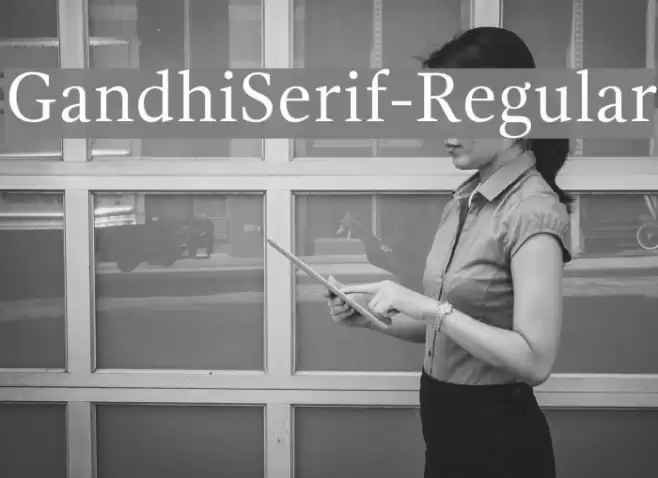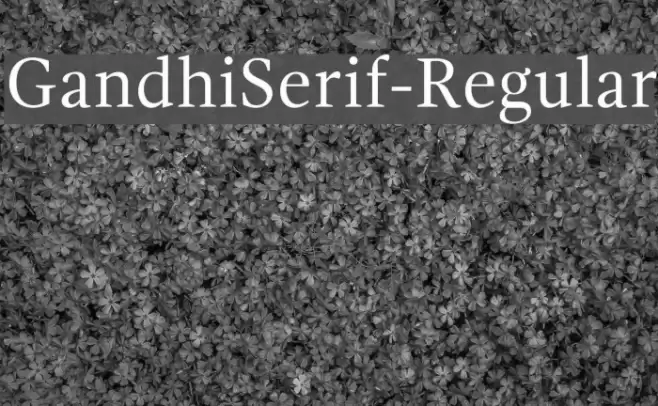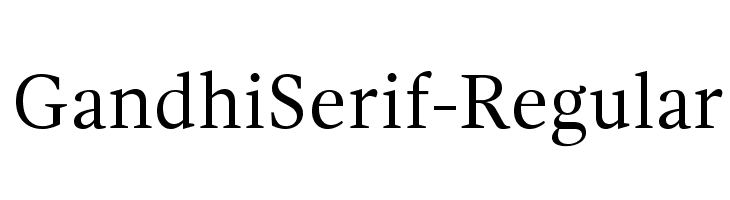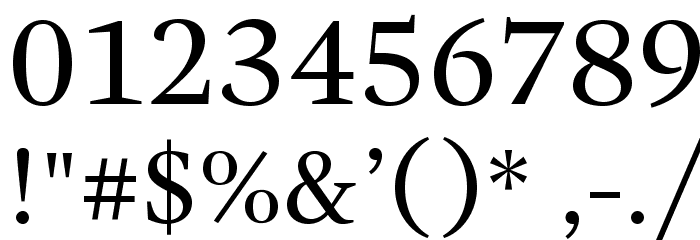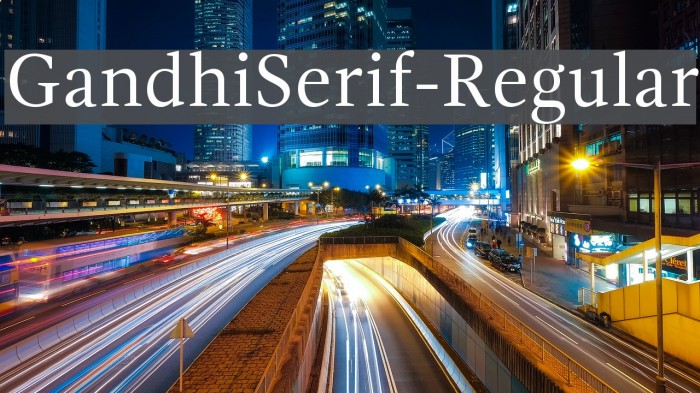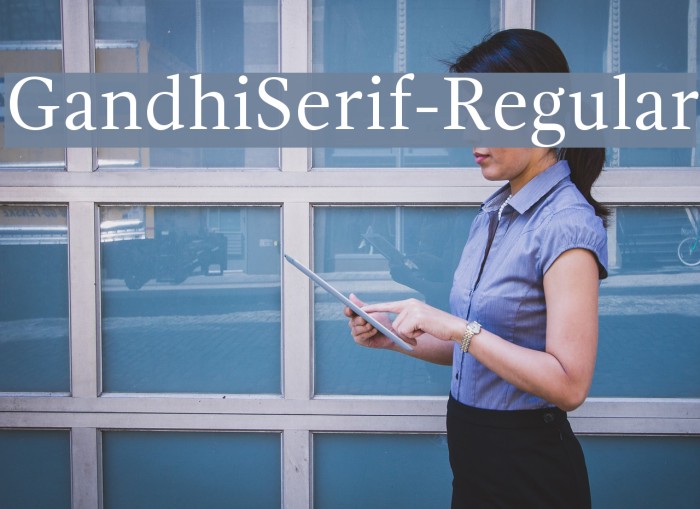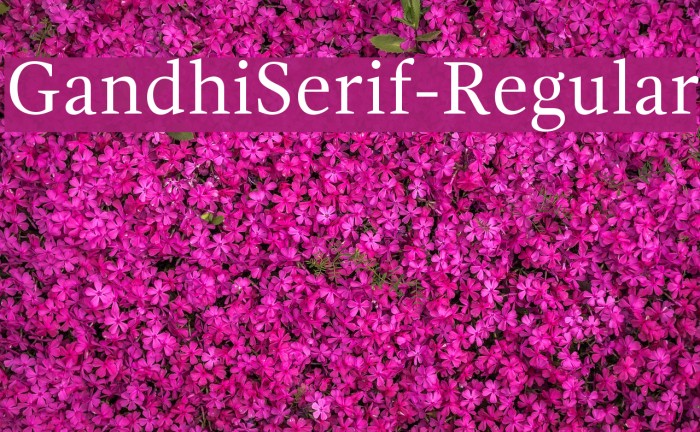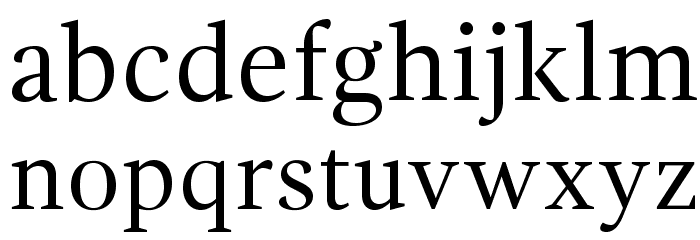
GandhiSerif-Regular Font
GandhiSerif-Regular Description
This typeface features a classic serif design with a refined and elegant appearance. The letters are well-proportioned, with distinct serifs that add a touch of sophistication. The uppercase characters are bold and commanding, while the lowercase letters maintain a smooth and readable flow. The numerals are clear and balanced, making them suitable for both text and display purposes. The special characters are thoughtfully designed, ensuring consistency across the font. This font is ideal for projects that require a traditional yet modern aesthetic.
A classic serif typeface with elegant proportions and refined serifs from Serif fonts.
- Proposed Projects: Ideal for editorial design, book covers, formal invitations, and branding projects that require a touch of elegance.
- Overall Style: Classic